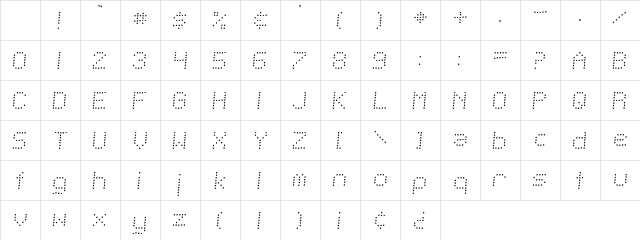
Complete SF Telegraphic Light Italic glyph index. Displaying only characters natively supported by SF Telegraphic Light Italic font.
SF Telegraphic Light is a composed and adaptable typeface that performs quietly and consistently across a wide range of design contexts. The slanted form adds forward momentum and visual energy. Its slender proportions lend an understated elegance to any composition.
Pro Tip: Use SF Telegraphic Light for emphasis, pull quotes, and subheadings where its slanted energy can add rhythm to the layout.